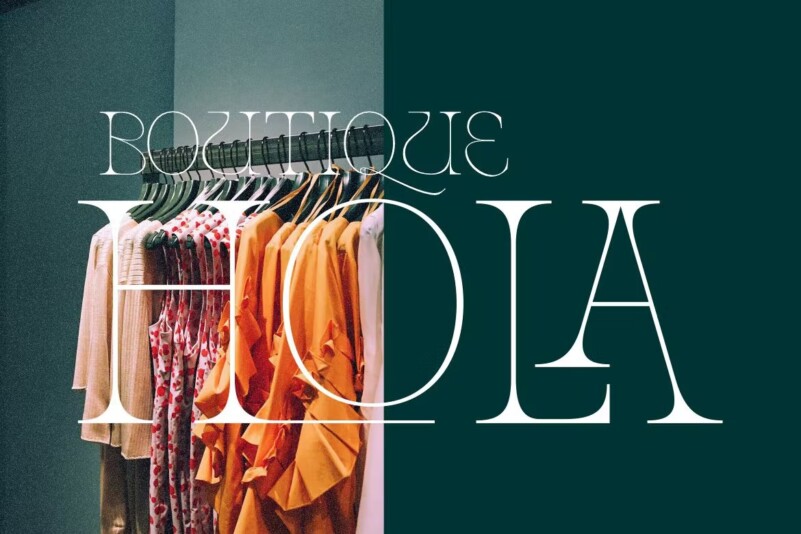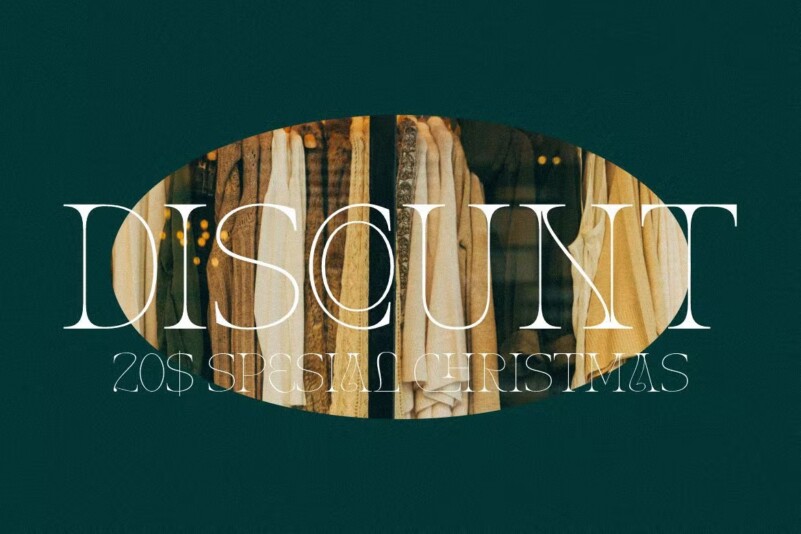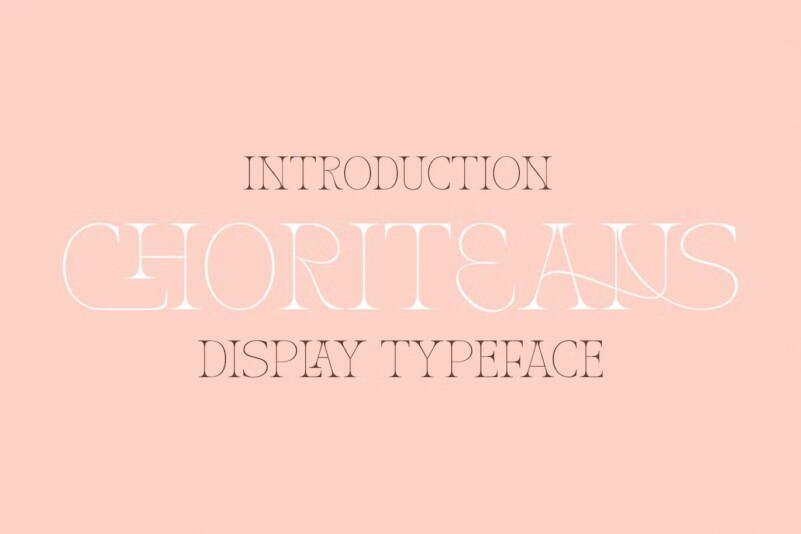
CHORITEANS Font
CHORITEANS is a unique serif font with a modern and trendy style. This font is perfect for posters, logos, stickers, t-shirts, labels, invitation cards, mockup illustrations, packaging, web and much more.